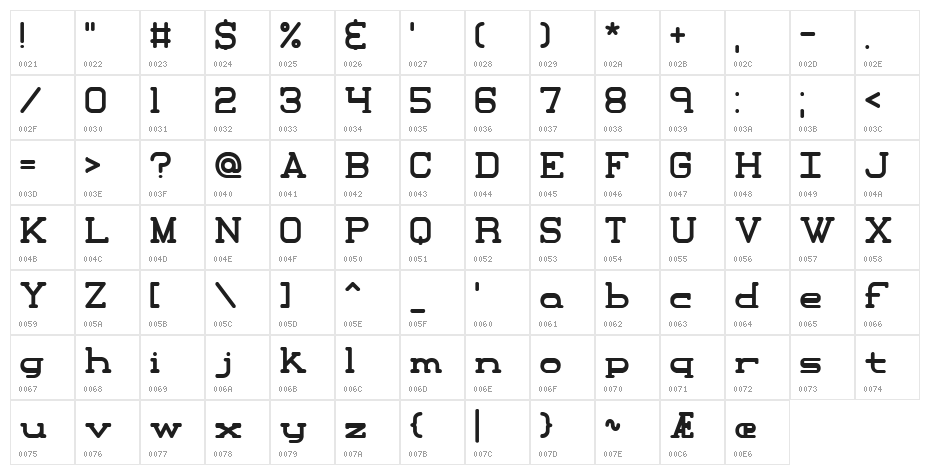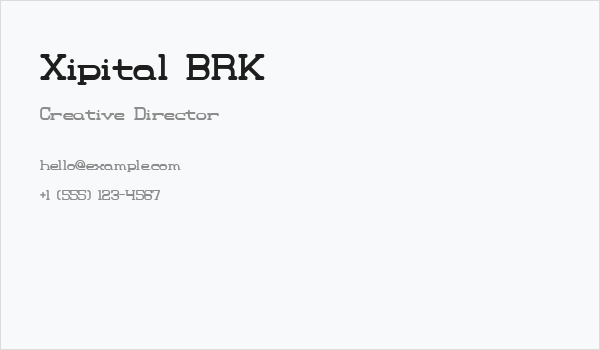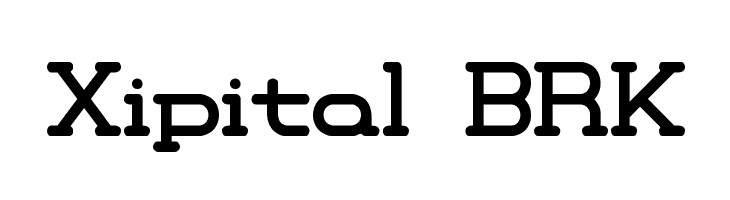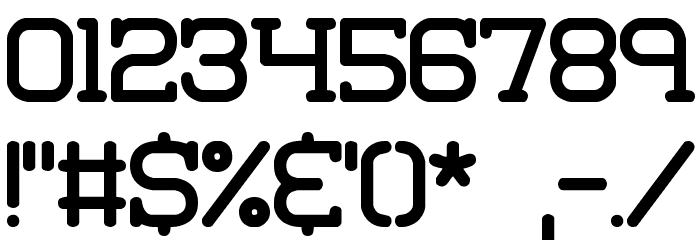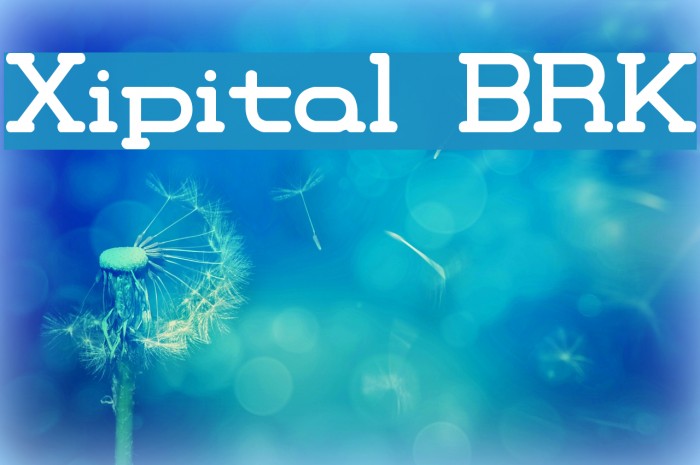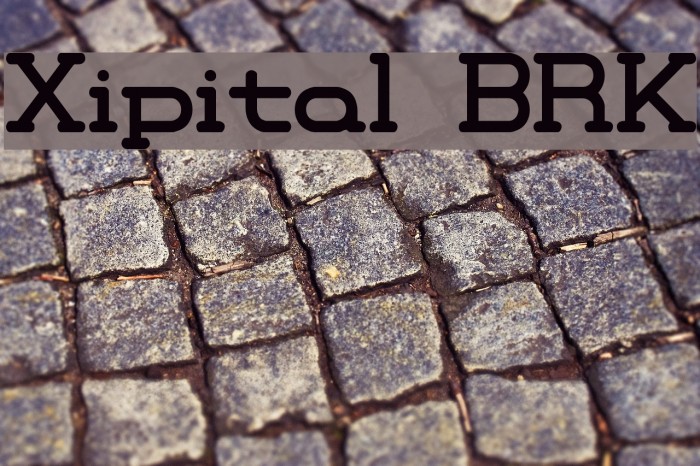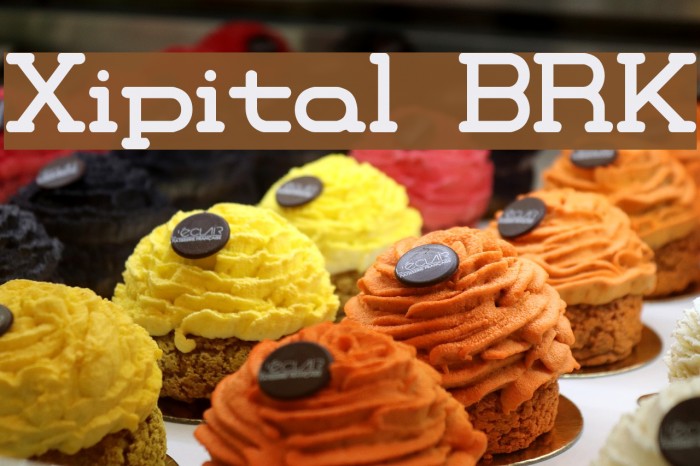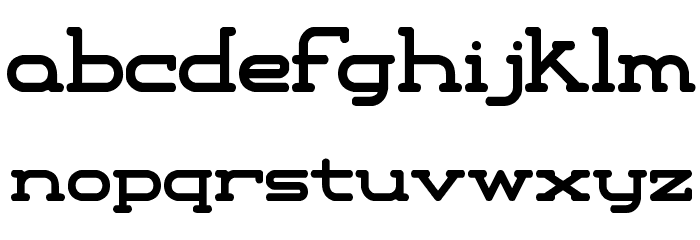
Xipital BRK Font
Xipital BRK Description
This font features a bold, geometric design with rounded edges, giving it a modern and slightly futuristic appearance. The characters are uniformly structured, with consistent stroke widths and a monospaced feel. The uppercase letters are particularly striking, with a strong presence and clear readability. The lowercase letters maintain the same geometric style, offering a cohesive look across different text cases. Numbers and special characters are designed to match the overall aesthetic, ensuring versatility in various applications. The font's unique style makes it suitable for projects that require a contemporary and distinctive look.
| Proposed Projects | Ideal for tech branding, modern posters, digital media, and futuristic-themed designs. |